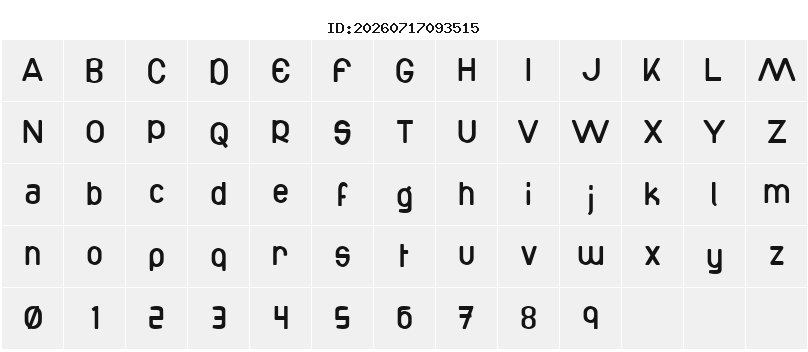
Bottix Preview
• Font Name: Bottix
• Full Font Name: Bottix
• PostScript Name: Bottix
About Bottix.ttf
Bottix.ttf is a modern, elegant sans-serif font designed for ultimate readability and visual harmony. Perfect for branding, headlines, web design, and print materials.